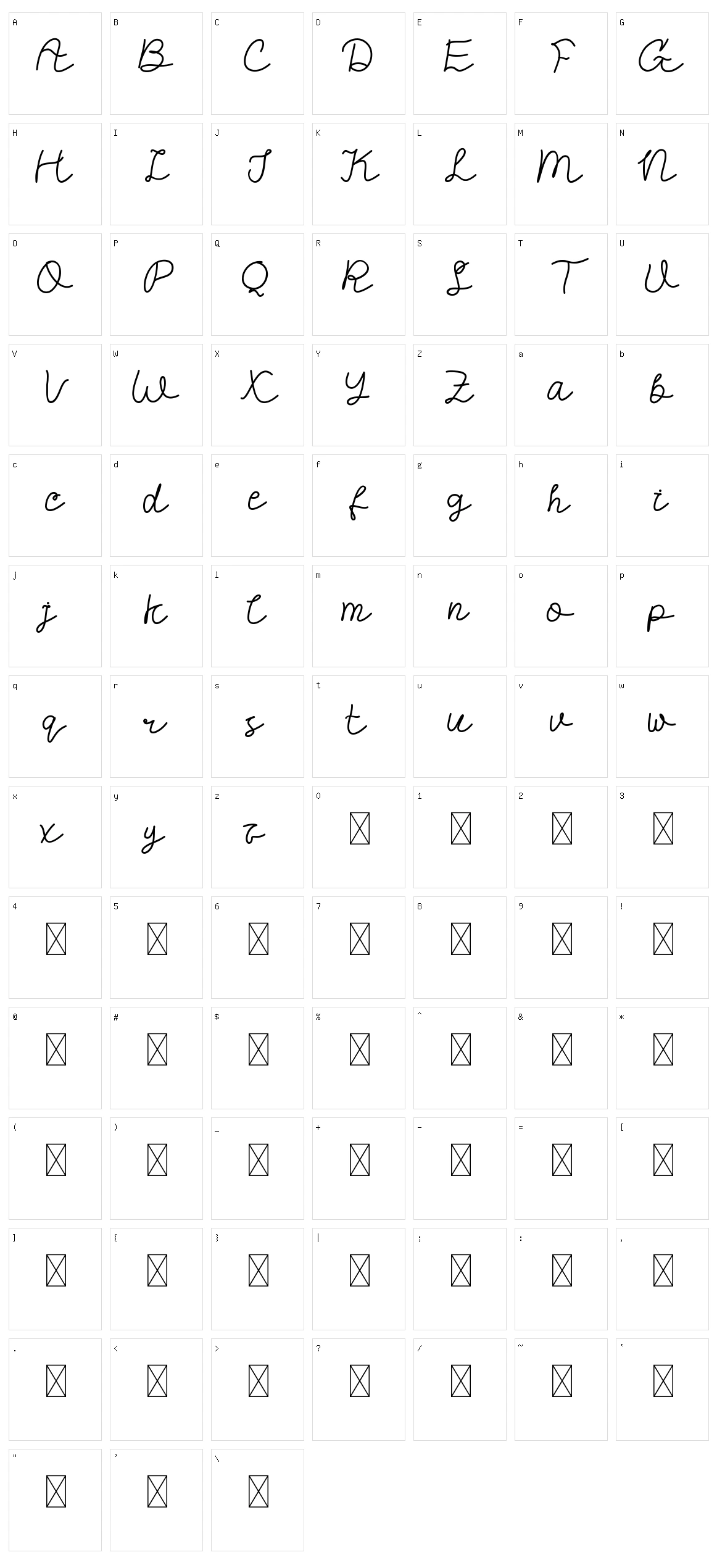
The free font Mallisa is carefully designed by Edric Studio, showcasing a thoughtful balance of creativity and usability and falls under the Script font style. When you download the ZIP file, it contains only 24.97 KB of font files, making it lightweight and quick to download. Please review the license details below to understand permitted usage and distribution rights. If license information is not available, we recommend using this font for personal projects only or contacting the author directly for commercial usage permissions.